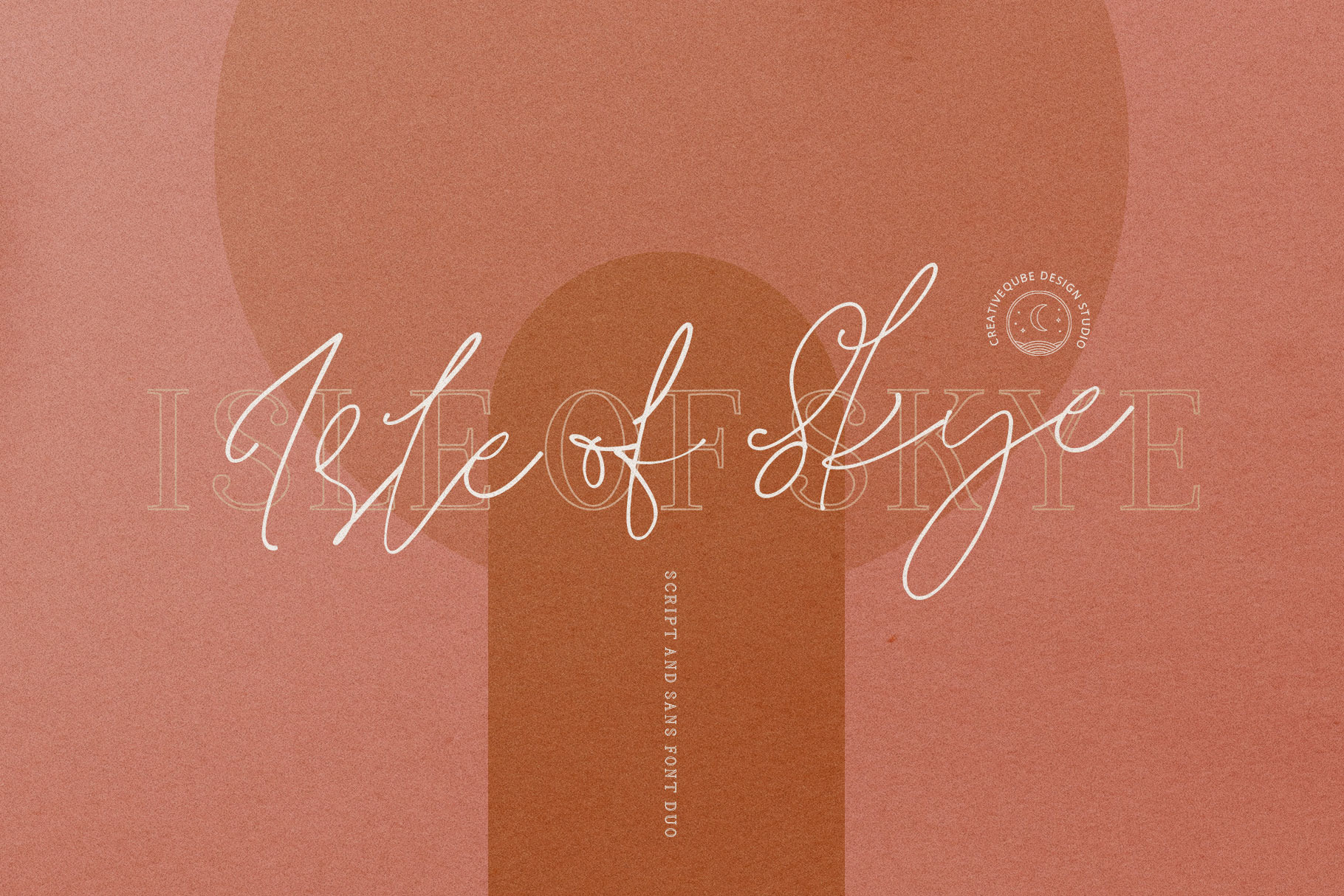
Isle of Skye Script Font Duo
Introducing a new signature style scrip font - Isle of Skye
This is a fun easy hand written script, paired with an outline serif, perfect for quotes, invites, weddings, posters, signs, branding, logos, planner stickers, and much more!
Isle of Skye comes in Bold, Upright, Regular and Serif. It also includes a full set of lowercase alternates and double ligatures to create that genuine hand written look!